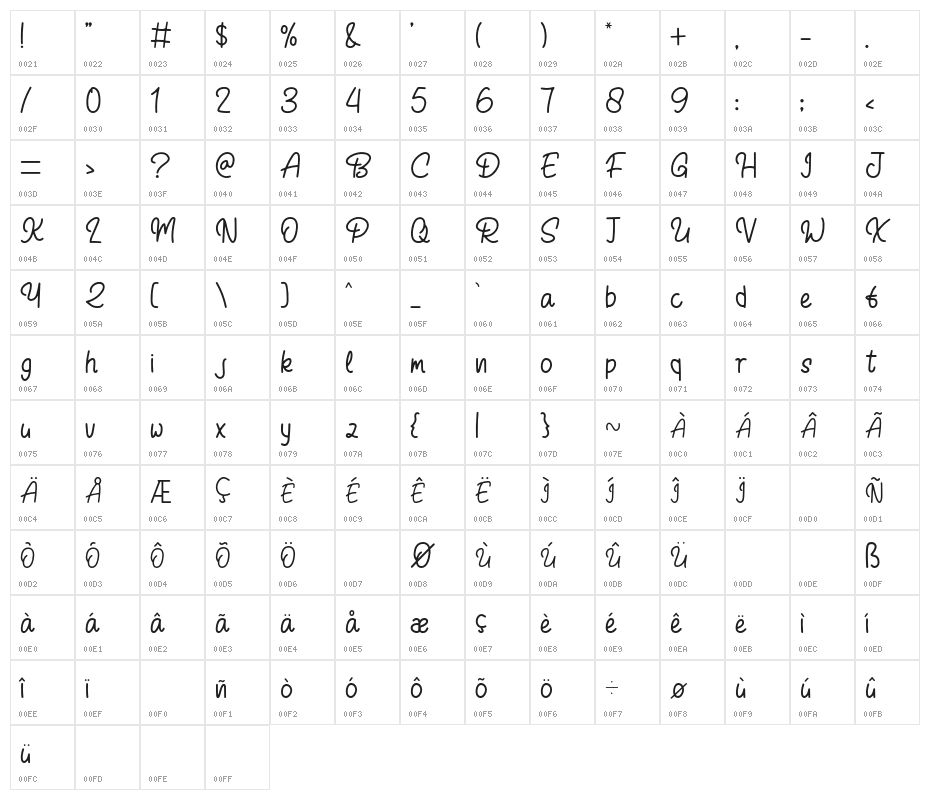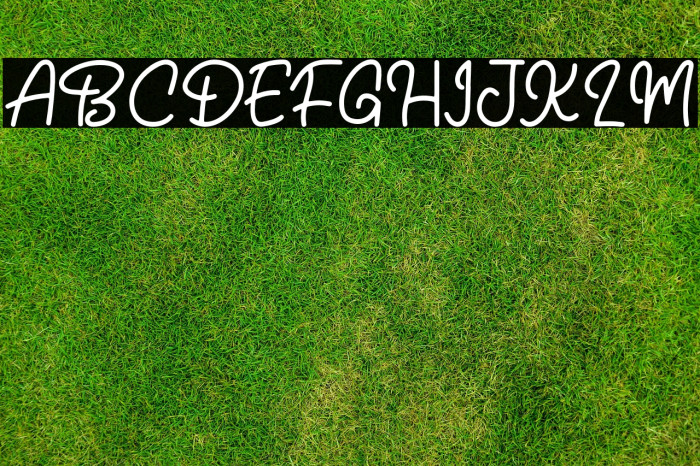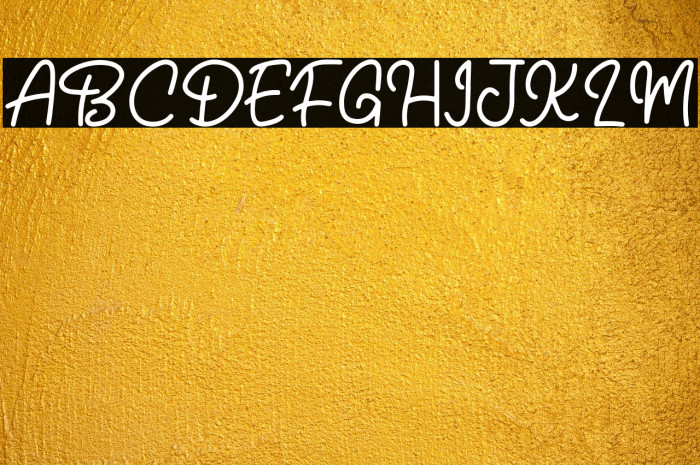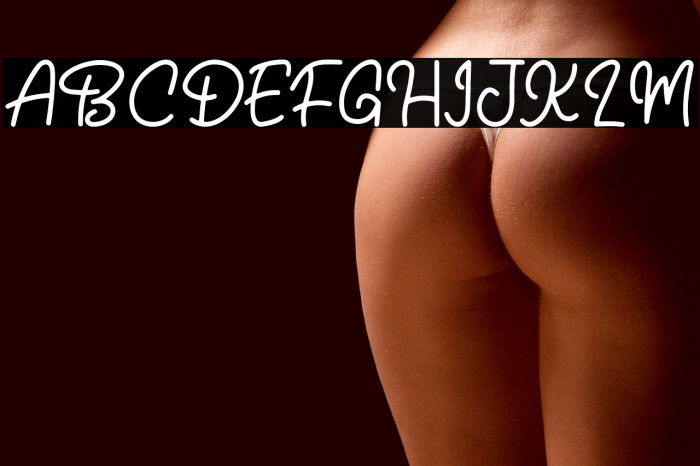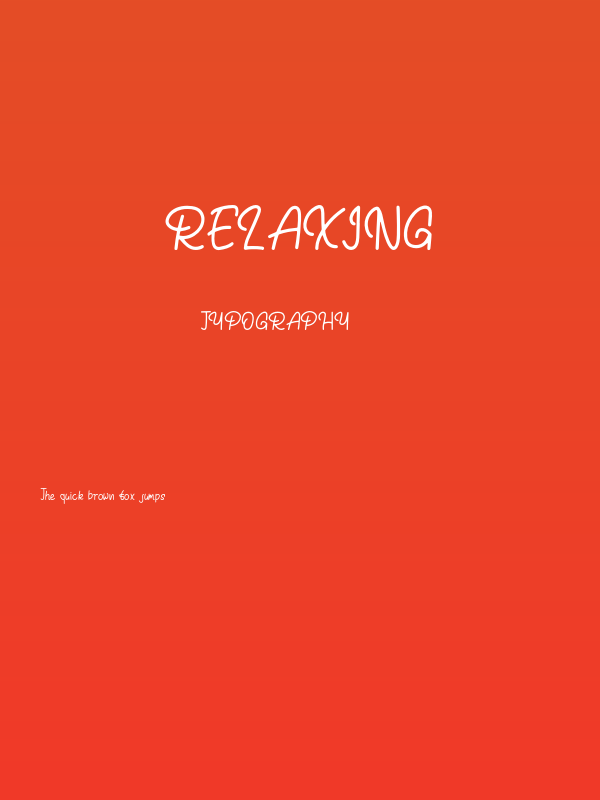
Relaxing Font
Relaxing Description
This font features a playful and casual handwritten style, characterized by its smooth curves and rounded edges. The letters are slightly slanted, giving a dynamic and informal appearance. The uppercase and lowercase letters maintain a consistent flow, with the lowercase letters exhibiting a slightly more relaxed structure. The numerals are clear and easy to read, matching the overall style of the alphabet. Special characters are included, maintaining the same playful aesthetic. This font is ideal for projects that require a personal touch or a friendly, approachable vibe.
| Proposed Projects | Greeting cards, children's books, casual branding, social media graphics. |